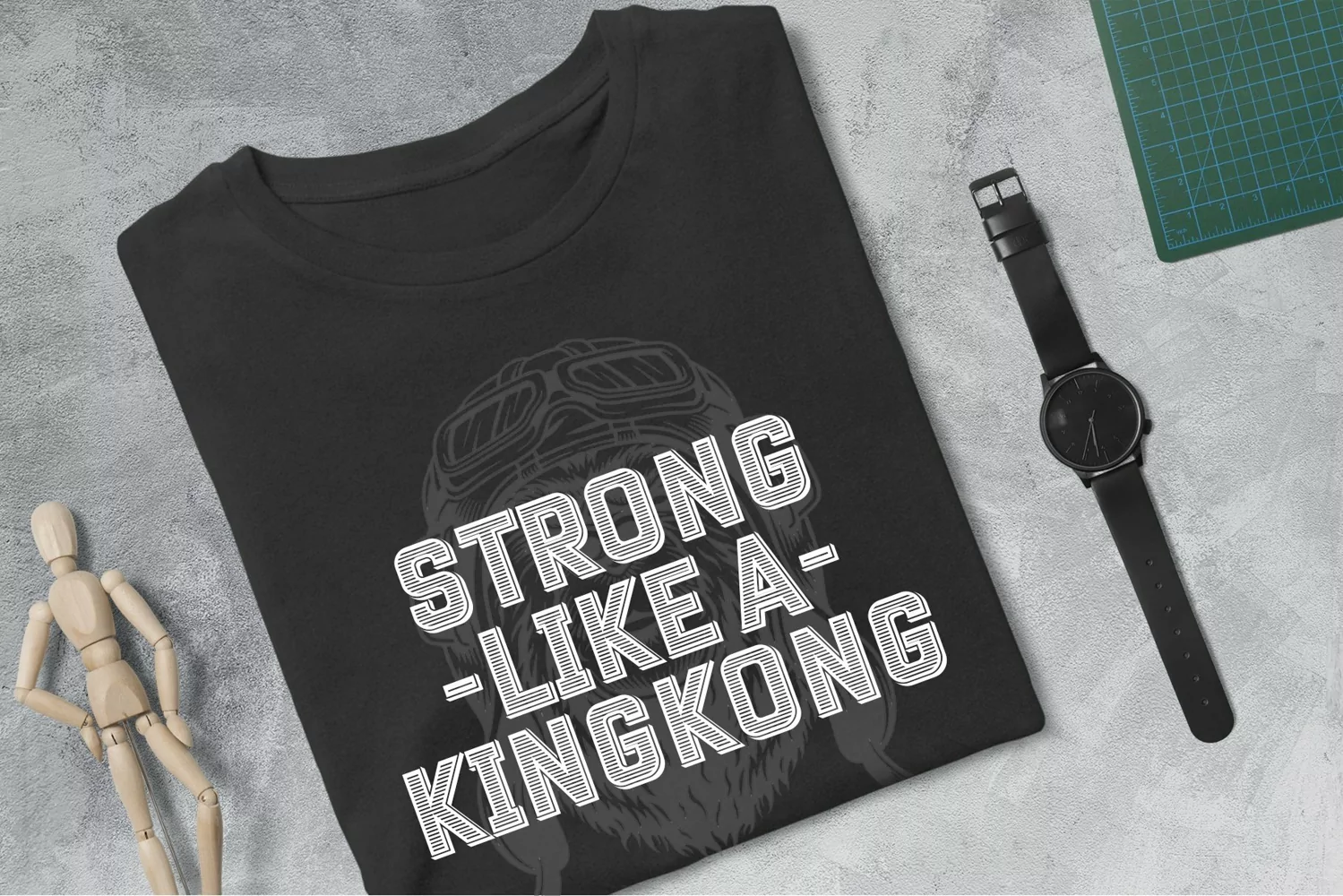
Doliaro is a display typeface. Perfect for display, poster, quotes, business card, packaging, merchandise, branding, logo, print, t-shirt, logotype, header, tittle, and many more.